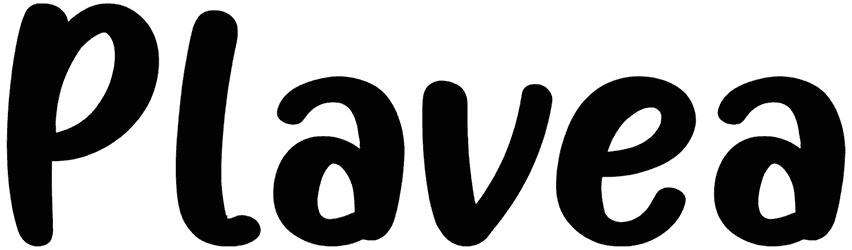
Plavea Font
Plavea is a cute, playful cartoon font that is fun and attractive! It provides shiny sans-serif-style characters that give friendly vibes. If you are interested in designing one whimsical typography that’s exciting and makes the audience happy, then you are in the best place.
Plavea is a handwritten font for both youths and adults. It will bring joy and happiness wherever it’s included, plus it looks creative. Children’s school books, comics, games, branding, and flyers are places to add it.